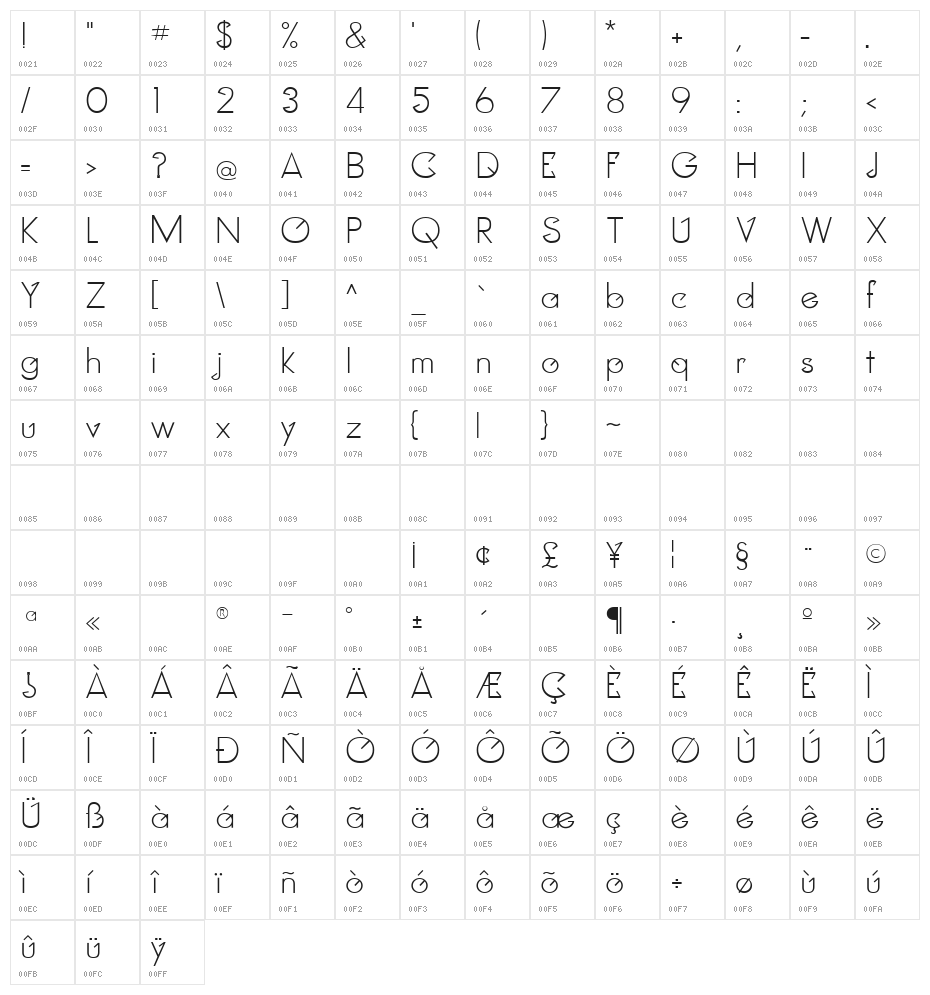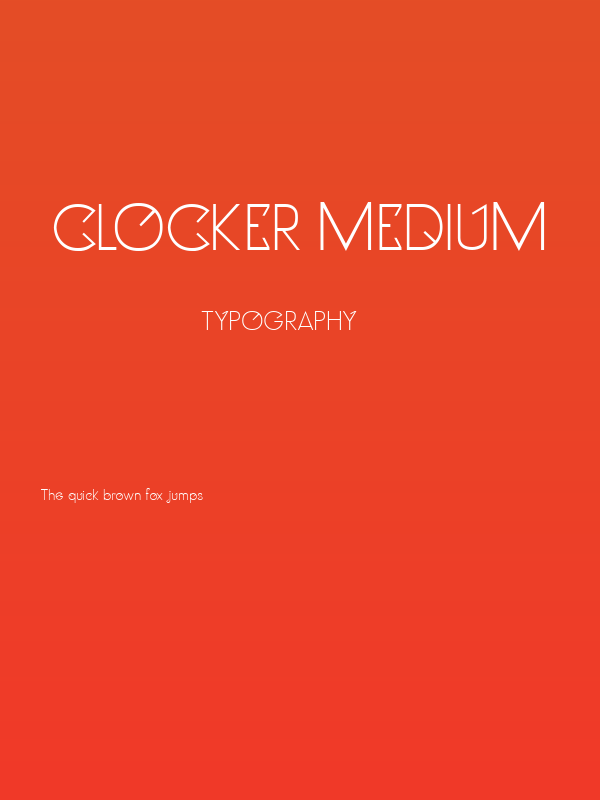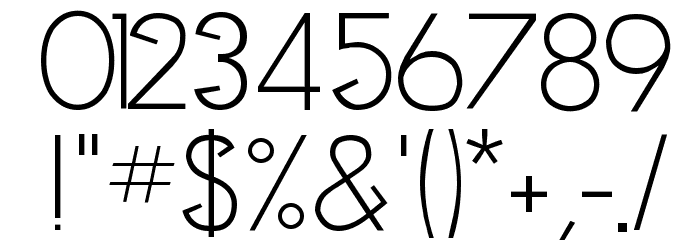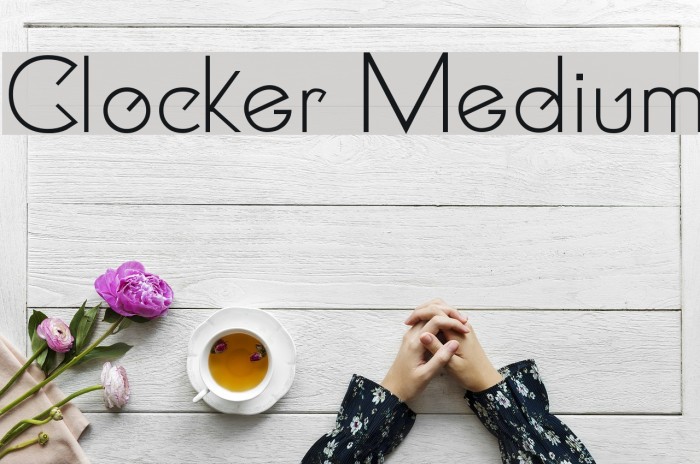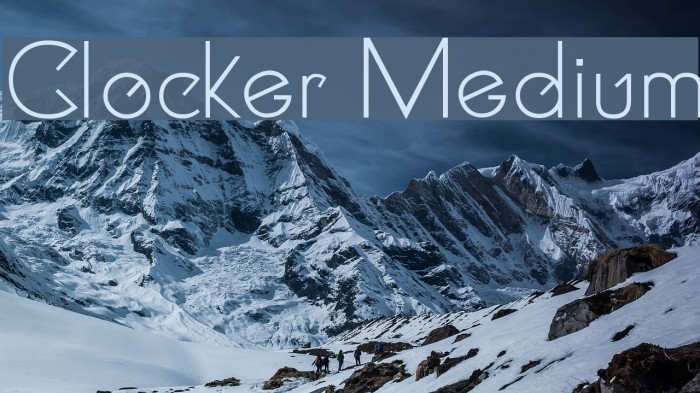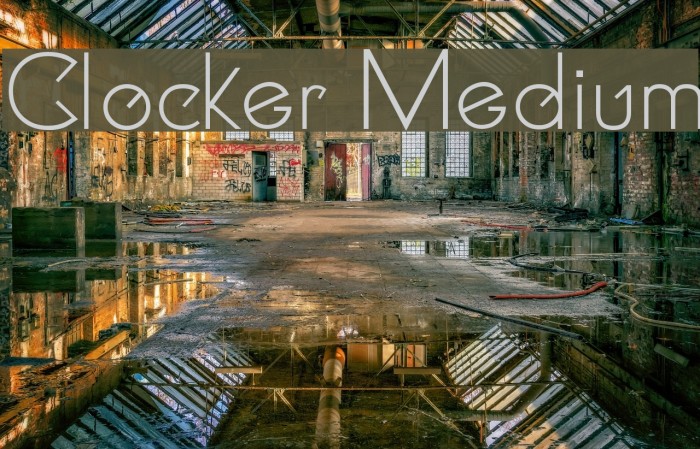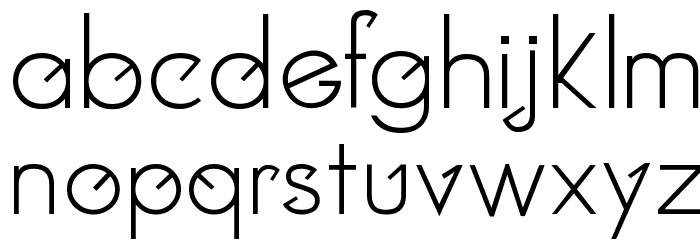
Clocker Medium Font
Clocker Medium Description
This font features a clean and modern design with geometric influences. The characters are constructed with a consistent stroke width, giving it a uniform appearance. The uppercase letters are tall and slightly condensed, while the lowercase letters maintain a similar width, creating a harmonious balance. The numerals are distinct and easy to read, with a contemporary style that complements the overall aesthetic. Special characters are well-integrated, maintaining the font's sleek and minimalist look. This typeface is versatile, suitable for various design applications.
| Proposed Projects | Ideal for branding, editorial design, web design, and advertising materials. |